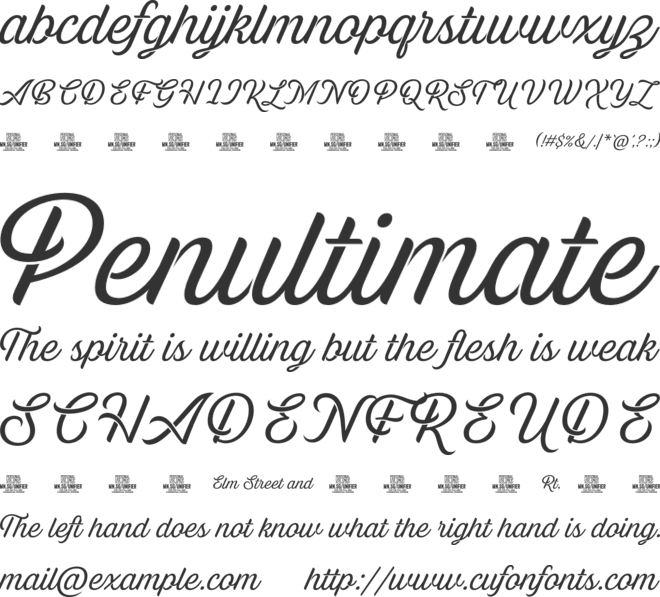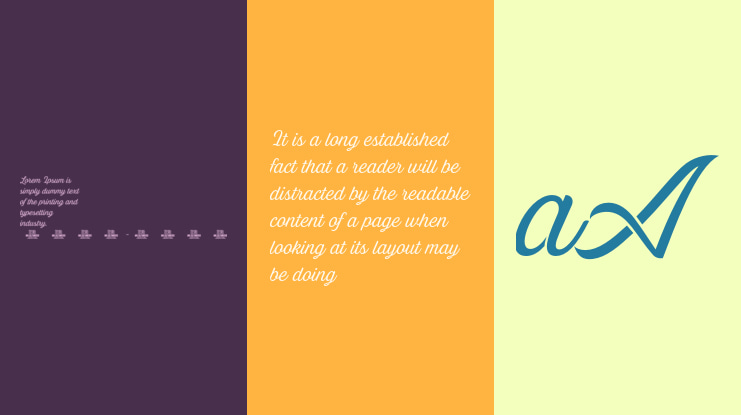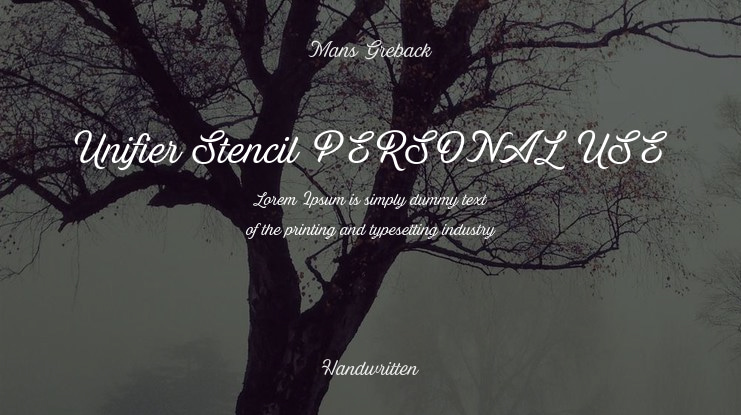
Unifier Stencil PERSONAL USE Font
Mans Greback
NOTE: This font is for PERSONAL USE ONLY!To purchase a commercial license, visit:https://www.mansgreback.com/product/unifier-scriptUnifier Stencil is a versatile font, an elegant choice that brings a calligraphic touch to any project. Unifier Stencil features connected whitespaces that allow all parts to link together, making it an excellent option for craft projects and cutout designs. For questions, please visit https://mansgreback.com/faq